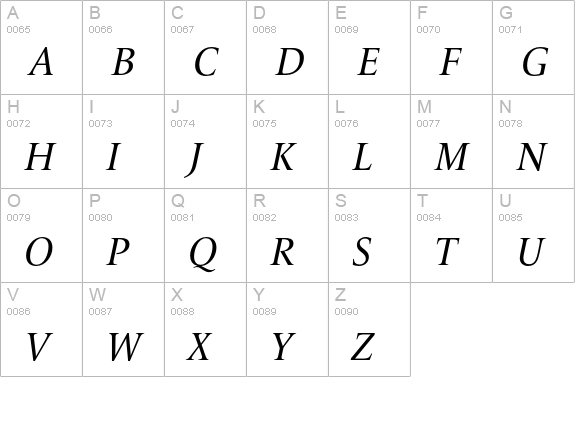
LeMondeLivre Italic is a distinctive, italic variant in the LeMondeLivre typeface family \xE2\x80\x94 well suited to design and typography projects.
LeMondeLivre Italic is a beautifully crafted font that exudes elegance and sophistication. Its delicate curves and slanted strokes add a touch of grace to any design project. Whether used for headlines, titles, or body text, this font is sure to captivate and engage readers. What sets LeMondeLivre Italic apart is its versatility and adaptability. It effortlessly blends with various styles and themes, making it a go-to choice for designers and typographers alike. Its italicized form adds a dynamic and expressive element to your text, allowing it to stand out and make a lasting impression. LeMondeLivre Italic is not only visually appealing but also highly functional. Its legibility ensures that your message is conveyed effortlessly, while its unique personality adds character to your designs. Whether you're creating branding materials, advertisements, or editorial layouts, this font is guaranteed to elevate your work to new heights. One of the best things about LeMondeLivre Italic is that it is freely available to download at FontsMarket.com. This means that you can access and use this stunning font without any cost or restrictions. Embrace the freedom to create beautiful designs with LeMondeLivre Italic, and let your creativity soar. In conclusion, LeMondeLivre Italic is the perfect choice for those seeking a font that combines elegance, versatility, and functionality. With its captivating design and free availability, it is a true gem in the world of typography. Download LeMondeLivre Italic from FontsMarket.com today and unlock a world of creative possibilities.